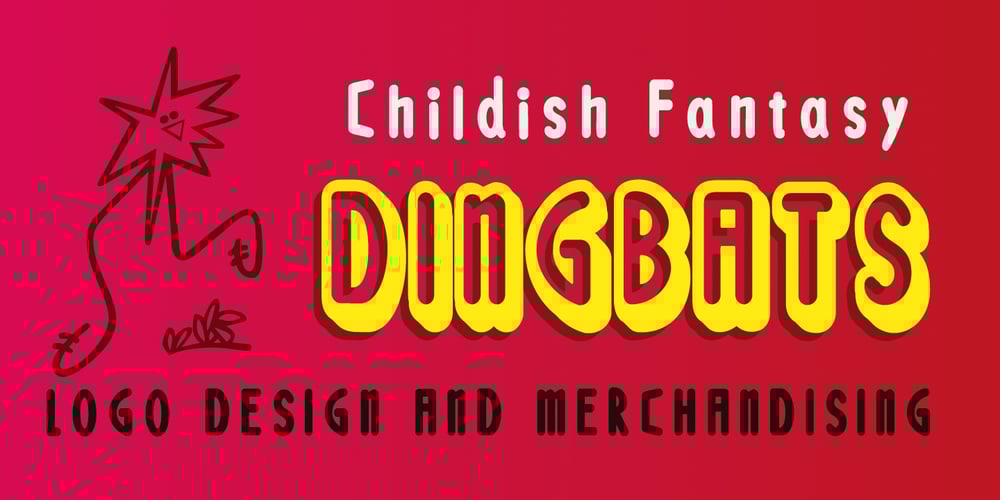
Loncherita
Loncherita font
Loncherita Font Family was designed by Fabio Eduardo Godoy and published by Fabio Godoy. Loncherita contains 5 styles and family package options. Loncherita is a typeface created by Fabio Eduardo Godoy Angel and has 5 files: Fill, Fill Outline, Shadow 1, Shadow 2 and dingbats variables. Its purpose is to serve as a childish fantasy modular typography useful in logo design and merchandising. It is also recommended to compose expressive titles that need the option in which letters can be colored by layers. In that sense Loncherita is a typeface with logic italic vertical logical and its amount of contrast between thick and thin strokes is monoline, its antlers are mullets and rounded ends. It is also important to note that ii has 26 Dingbats designed to be point of attention and illustrate countless children and playful issues.